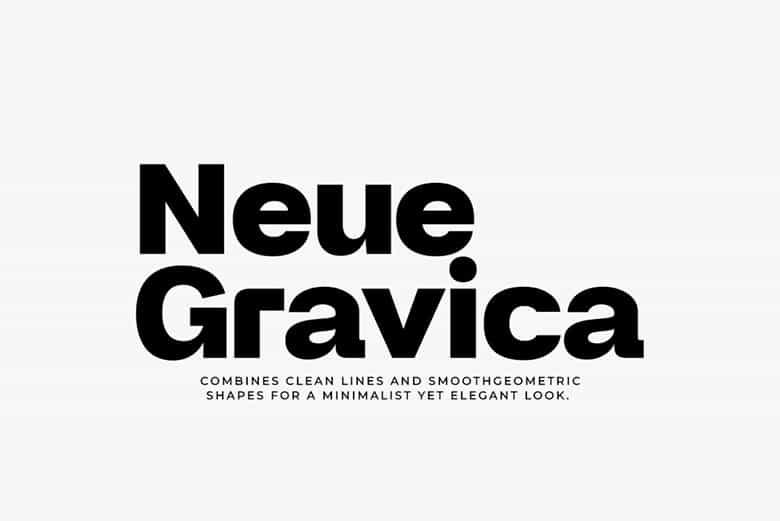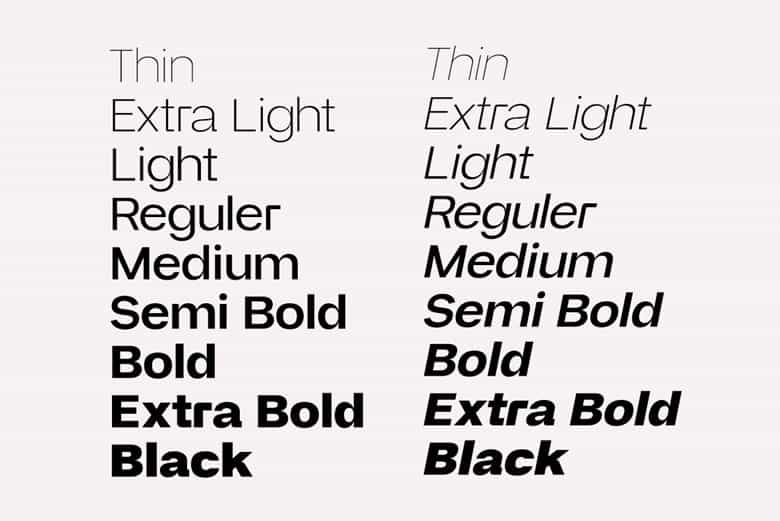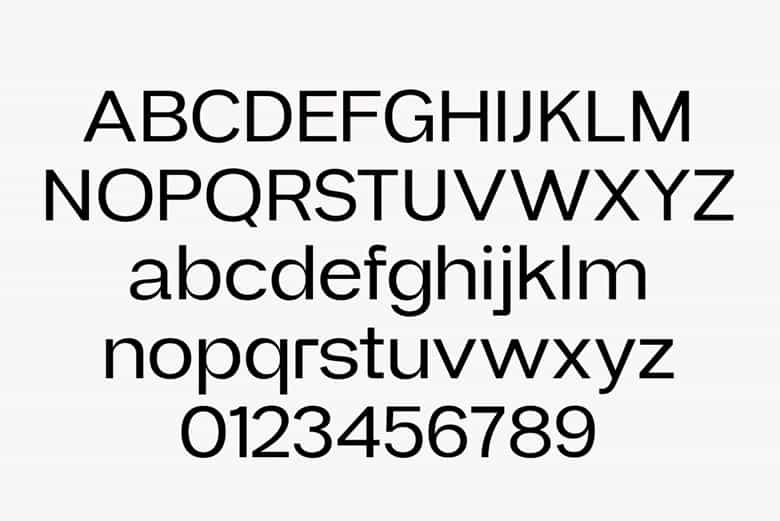
Neue Gravica is a fresh and clean sans serif typeface that has its origins in geometry but its forms are slightly rounded. The graphic is rather simple, that’s why it will be suitable for both offline and online advertising. When it comes to logos, branding, or even web design,